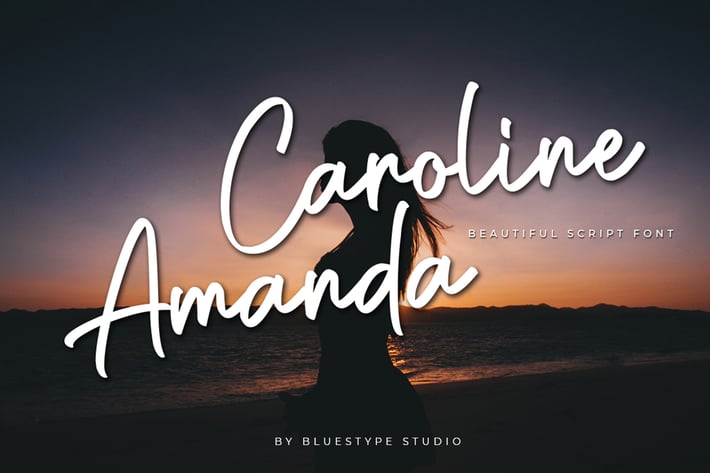
Caroline Amanda Font
This is our newest product called Caroline Amanda. Caroline Amanda is a sweet and cool script that easily combines legibility and authenticity!
This font is suitable for use on business cards, weddings, t-shirt designs, logos, magazines, quotes, fashion, watermarks, invitations, signatures.